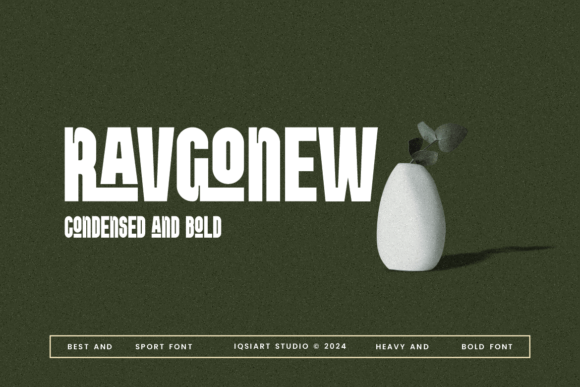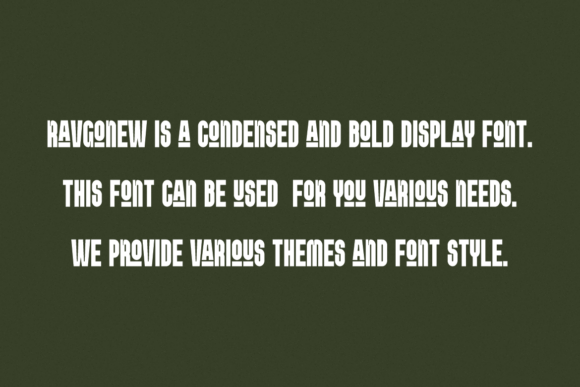
Introduction to Ravgonew Font
Ravgonew is a modern condensed display font that features clean lines and a bold look.
It is designed to be eye-catching, making it perfect for headlines, posters, and advertisements Its narrow letters allow for more text in a small space while still being easy to read.
Key Features of Ravgonew Font